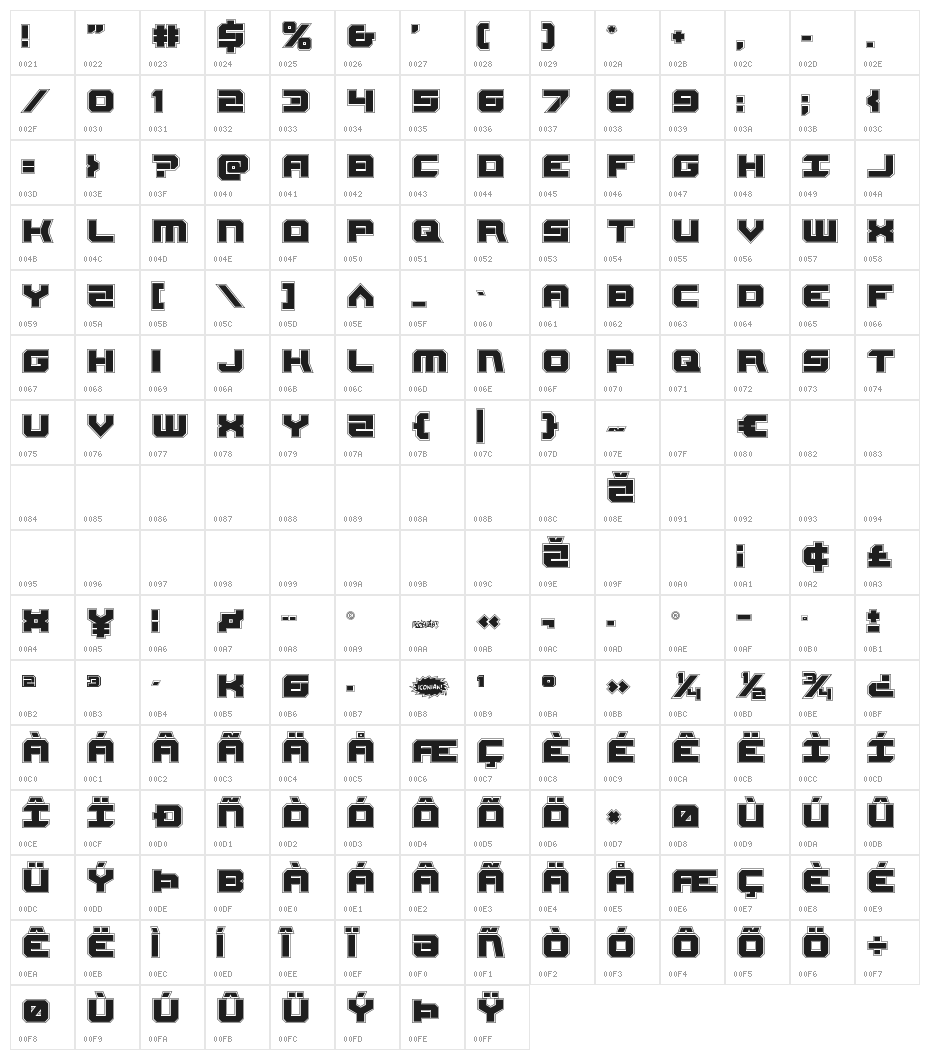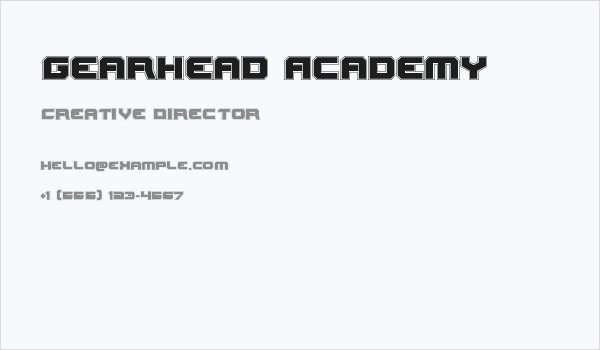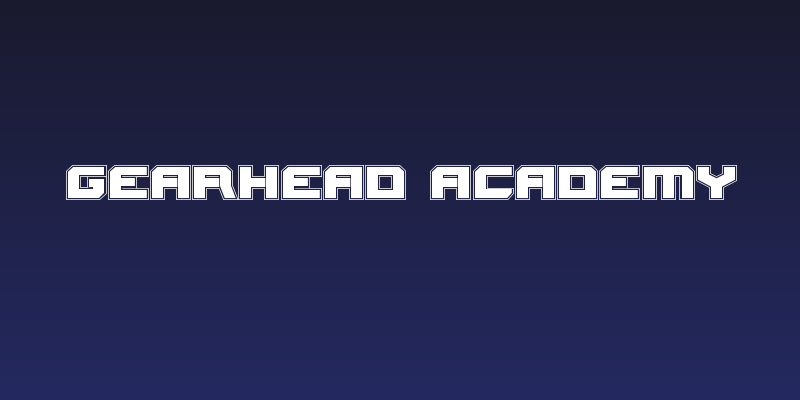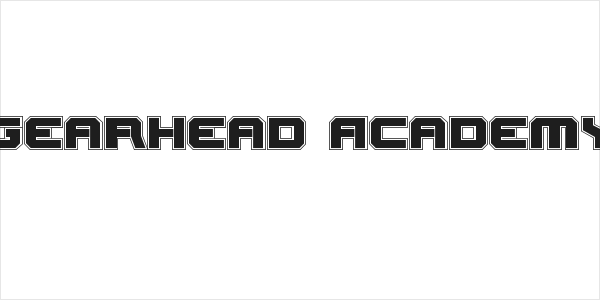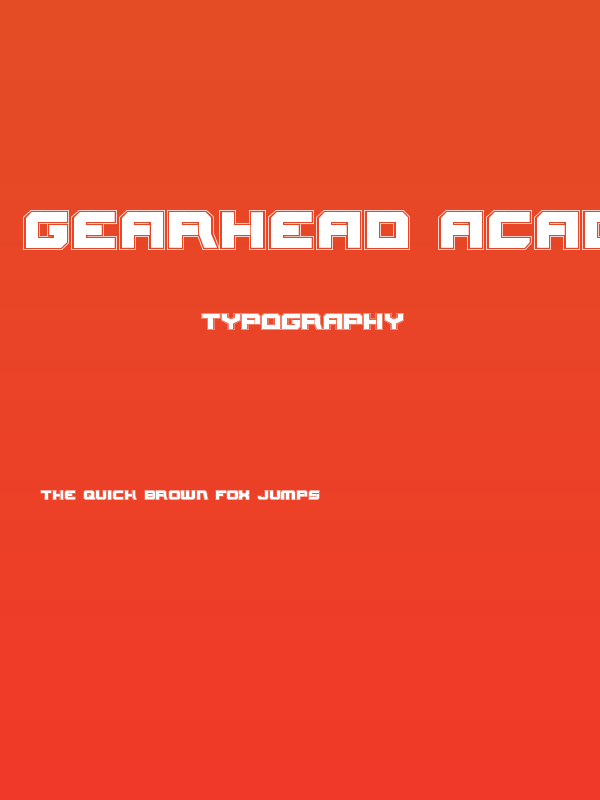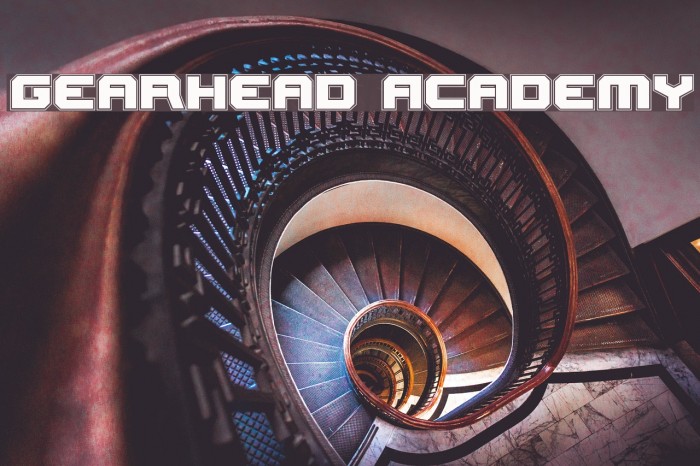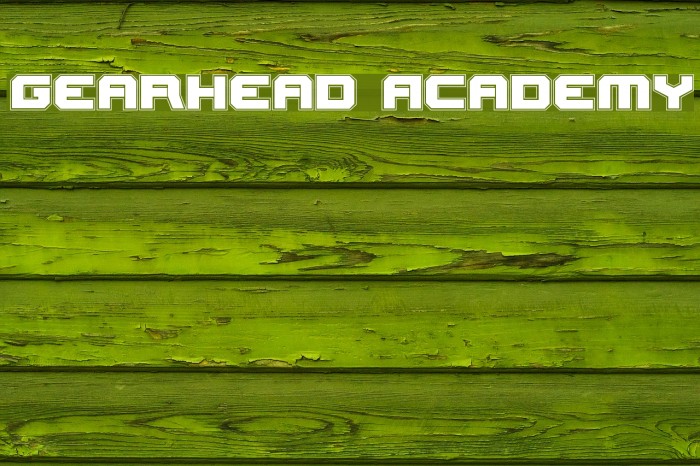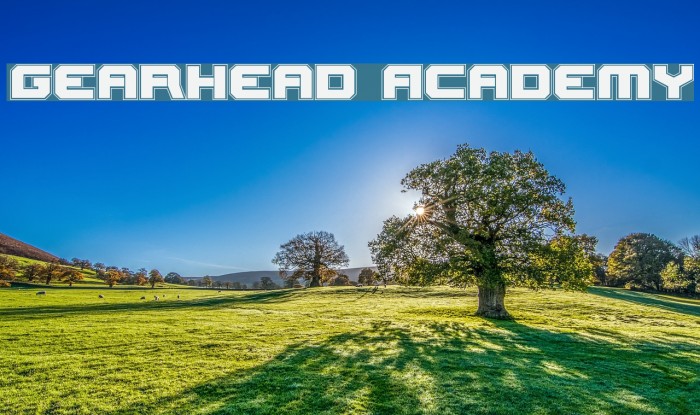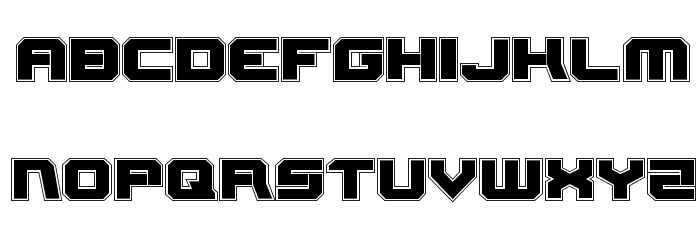
Gearhead Academy Font
Gearhead Academy Description
This font features a bold, geometric design with a strong industrial feel. The characters are constructed with thick, angular lines and a three-dimensional effect that gives them a striking presence. The uppercase and lowercase letters maintain a consistent style, with sharp edges and a uniform width. Numbers and special characters are designed to match the boldness and angularity of the alphabet, ensuring a cohesive look across all text elements. The font's unique style makes it highly suitable for projects that require a modern, edgy aesthetic.
| Proposed Projects | Ideal for branding, posters, video game graphics, and automotive-themed designs. |